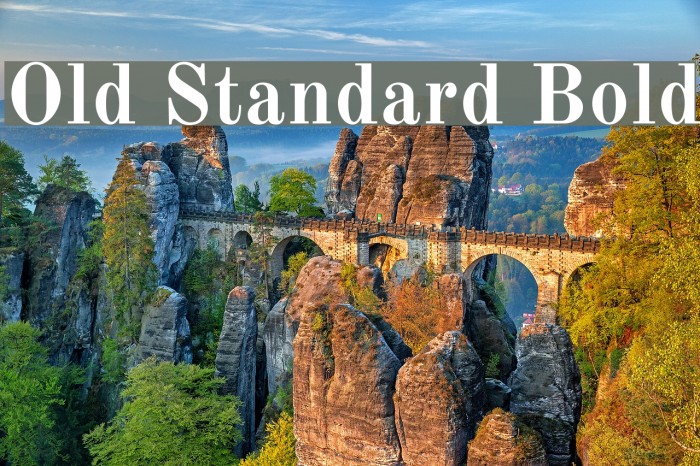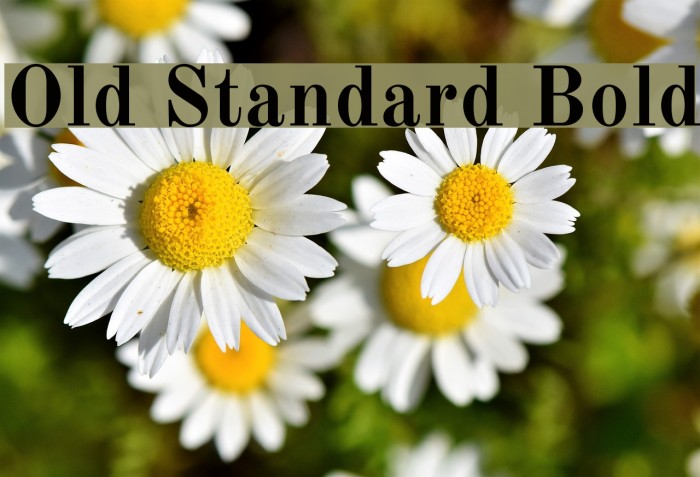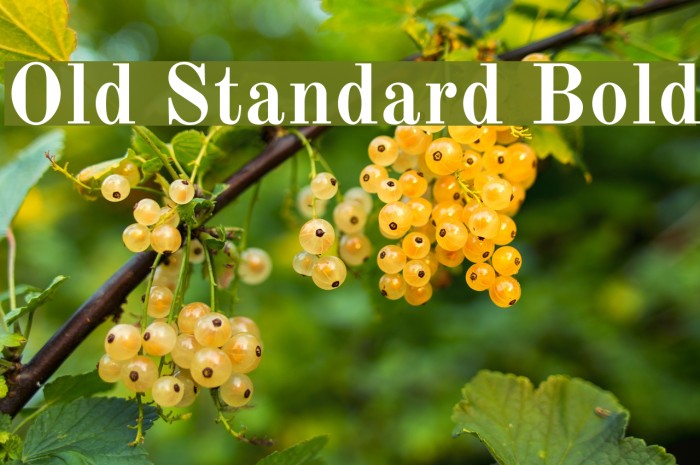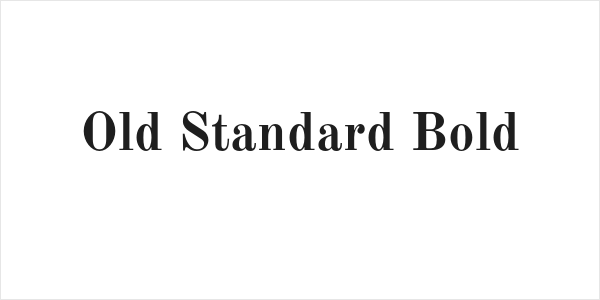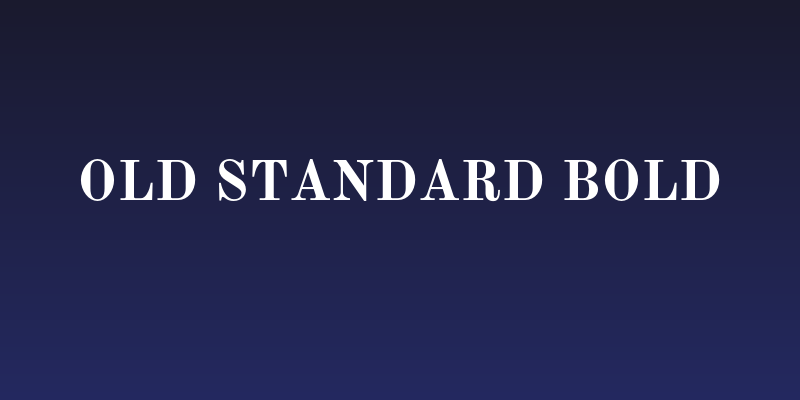
Old Standard Bold Font
This font exudes a classic and timeless elegance, characterized by its bold and prominent serif style. The uppercase letters are strong and commanding, while the lowercase letters maintain a harmonious balance with their slightly rounded forms. The numerals are distinct and easily readable, making them suitable for various applications. The special characters are well-integrated, maintaining the overall aesthetic of the font. The thick strokes and high contrast between thick and thin lines give it a sophisticated and authoritative appearance, ideal for making a statement.
A bold, classic serif font with high contrast and elegant style.
- Proposed Projects: Ideal for editorial design, book covers, formal invitations, and branding projects that require a touch of sophistication.
- Overall Style: Classic